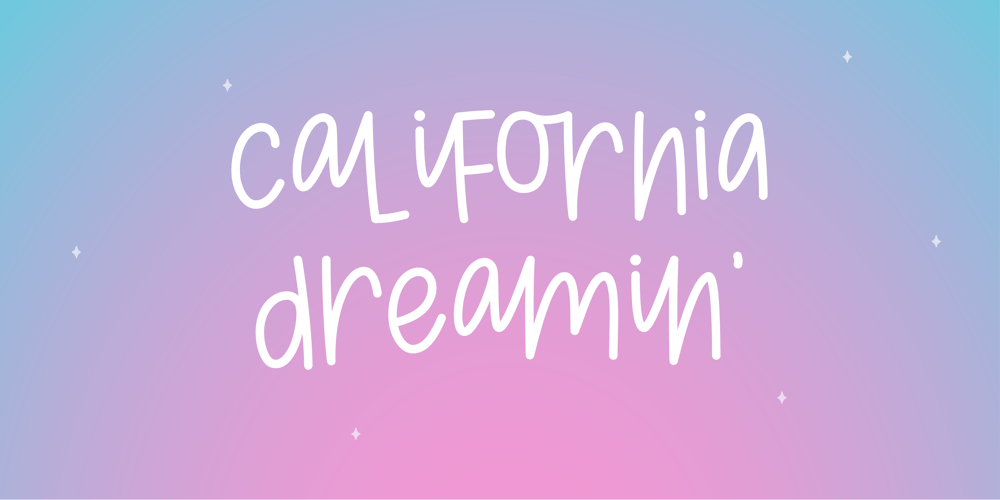
MTF California Dreaming
MTF California Dreaming font
MTF California Dreaming Font Family was designed by Tina Raparanta and published by Miss Tiina Fonts. MTF California Dreaming contains 1 styles and family package options. Transport yourself into a world of playful creativity with ‘California Dreamin’. This irresistibly charming font is characterized by dynamic bouncy letterforms and an abundance of alternate connected characters for a unique look like no other font! Experience artistic versatility like no other with California Dreamin’ – the perfect choice for those desirous of injecting a dose of whimsical charm into their work.